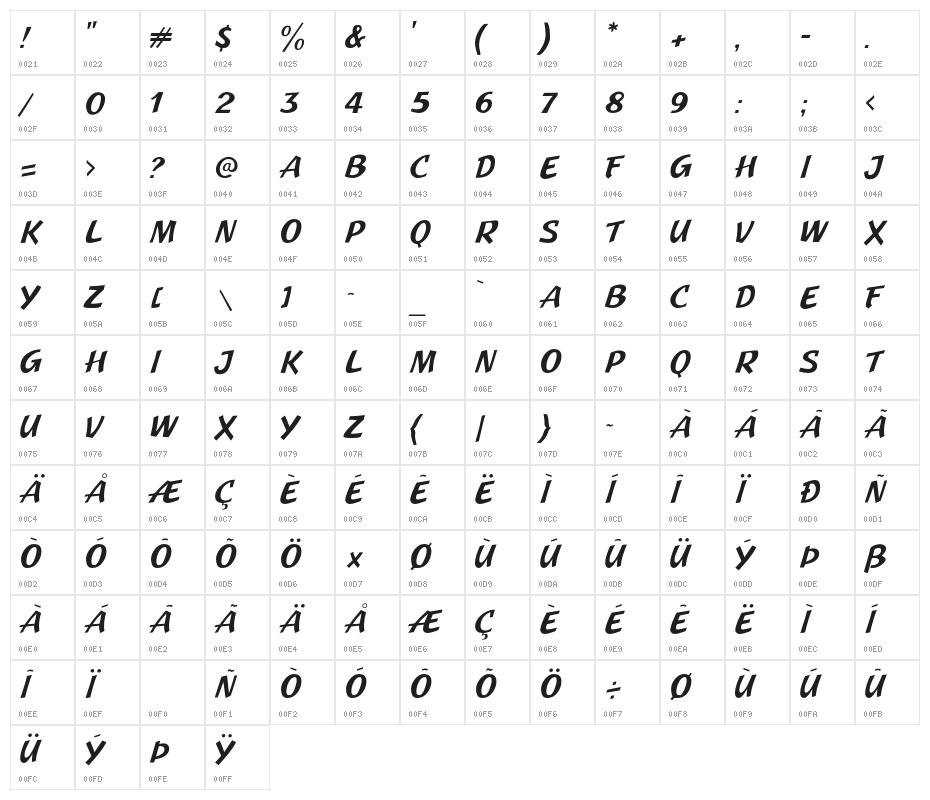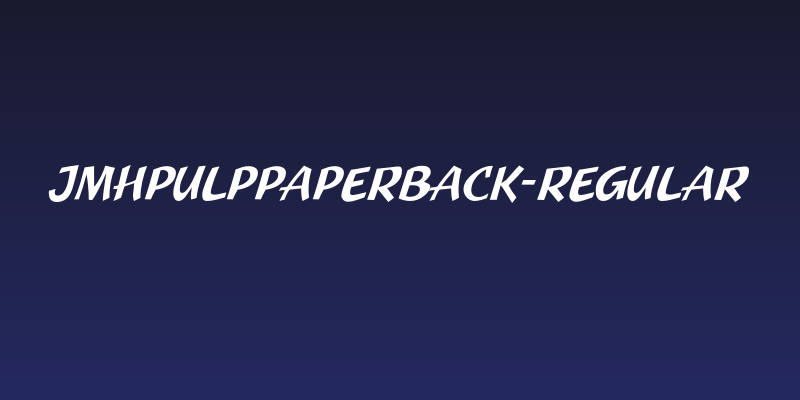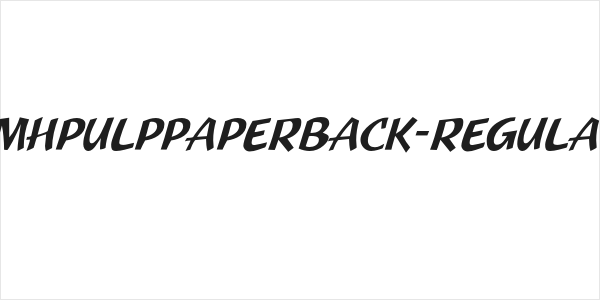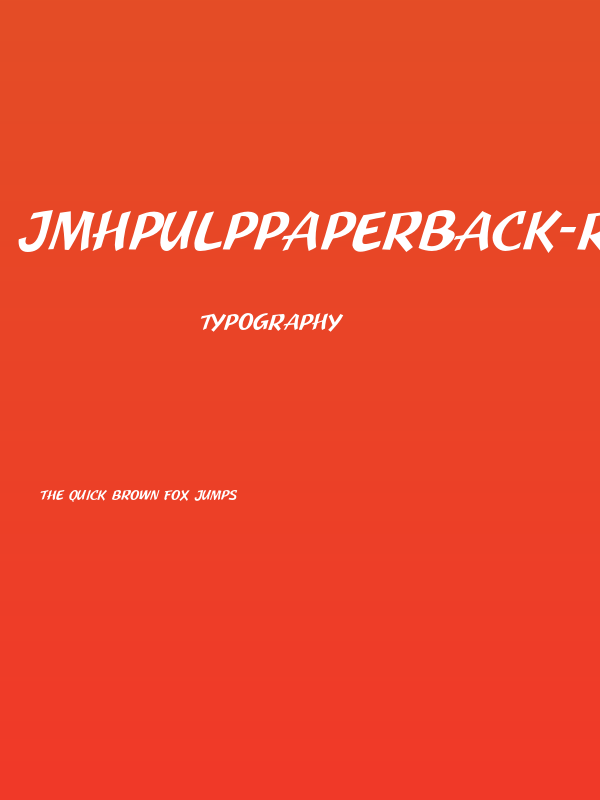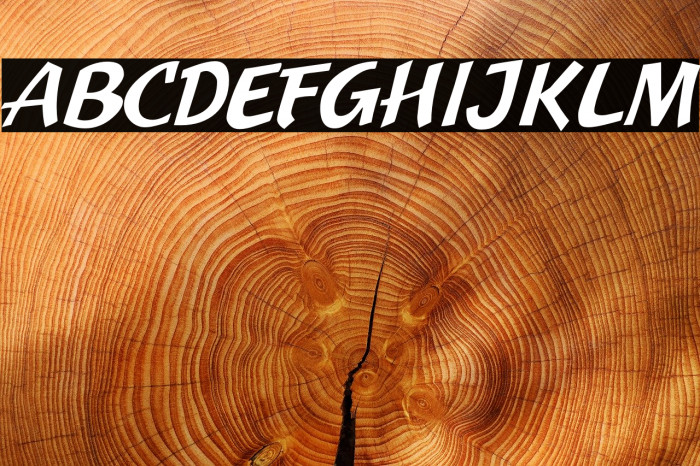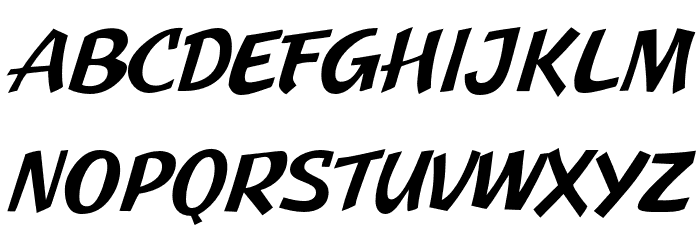
JMHPulpPaperback-Regular Font
JMHPulpPaperback-Regular Description
This font features a bold and dynamic style with a strong slant, giving it an energetic and forward-moving appearance. The characters are crafted with thick strokes and sharp angles, creating a sense of urgency and movement. The uppercase letters are particularly striking, with a consistent slant that adds to the overall cohesiveness of the design. The numerals and special characters maintain the same boldness and slant, ensuring uniformity across all glyphs. This font is ideal for projects that require a strong visual impact and a sense of motion.
| Proposed Projects | Ideal for book covers, posters, and branding that requires a bold and energetic look. |